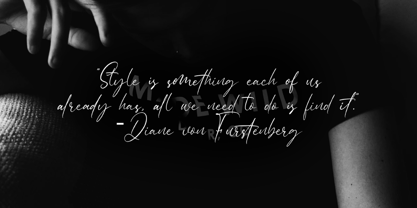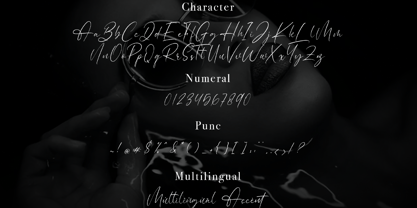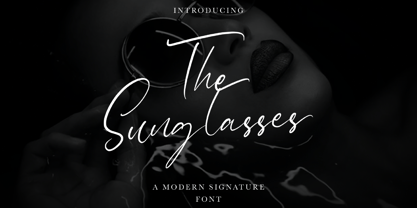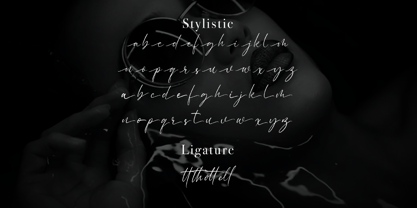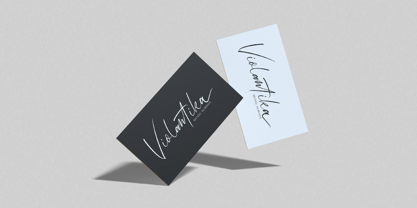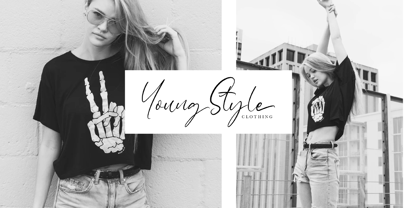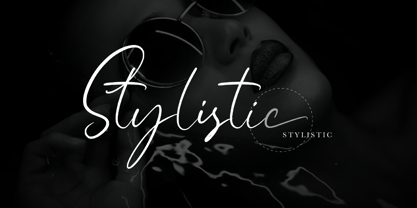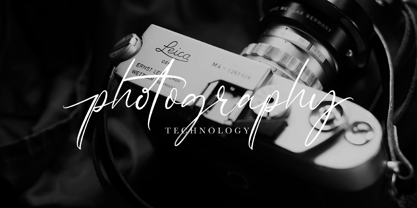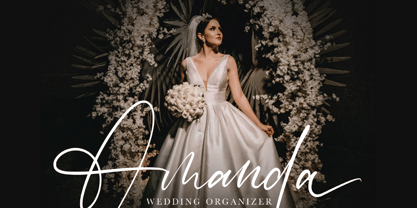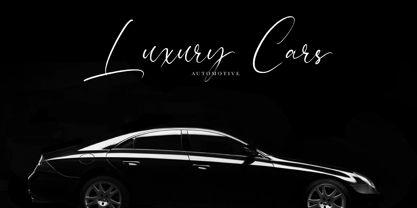
The Sunglasses
by Rockboys Studio
The The Sunglasses Font Family was designed by Hayinah and published by Rockboys Studio. The Sunglasses contains 1 styles.
The Sunglasses is a signature font with a natural handwritten look. It is equipped with swashes, ligatures, and multiple styles to make it a versatile font. The Sunglasses can be used for various purposes such as: signatures, watermarks, magazines, quotes, website, titles and much more!